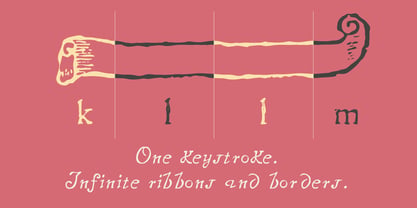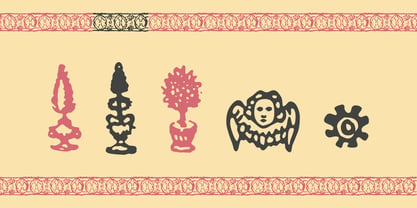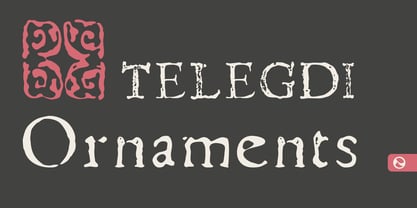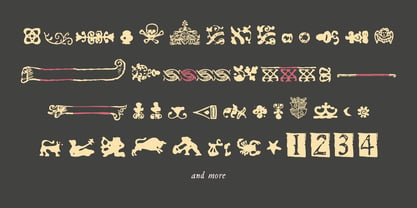
Telegdi Ornaments
por Monovo
La familia tipográfica Telegdi Ornaments fue diseñada por Amondó Szegi y publicada por Monovo. Telegdi Ornaments contiene 1 estilos. Más información sobre esta familia
Ornaments are the punctuation of atmosphere.
In the 16th- and 17th-century Central European printing tradition, the white space of a page was never left to chance. Zoomorphic forms, heraldic fragments, floral borders, and small marks filled the margins not with noise but with intention — each one a signal that the page had been considered, not merely filled.
Telegdi Ornaments draws from that vocabulary. They are not decorative afterthoughts. They are a system.
Diseñadores: Amondó Szegi
Fundición: Monovo